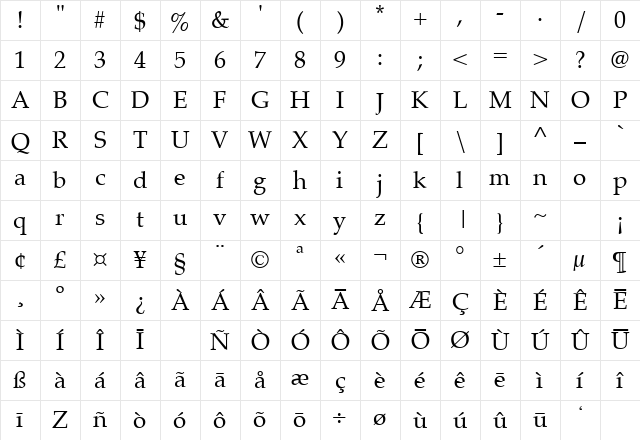
HI Piilani Roman Regular
Design Context for HI Piilani Roman
HI Piilani Roman is a composed and adaptable typeface that performs quietly and consistently across a wide range of design contexts.
Pro Tip: Use HI Piilani Roman in both headline and body roles to test its range before committing to a single application.